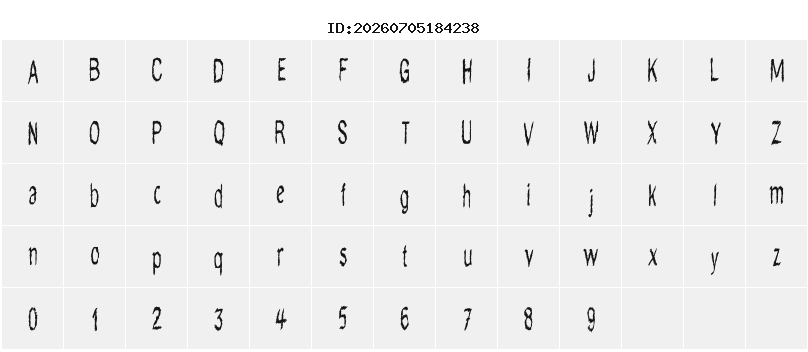
• Font Name: Do Doodle
• Designer: Galdino Otten
Do Doodle.ttf is a modern, elegant sans-serif font designed for ultimate readability and visual harmony. Perfect for branding, headlines, web design, and print materials.